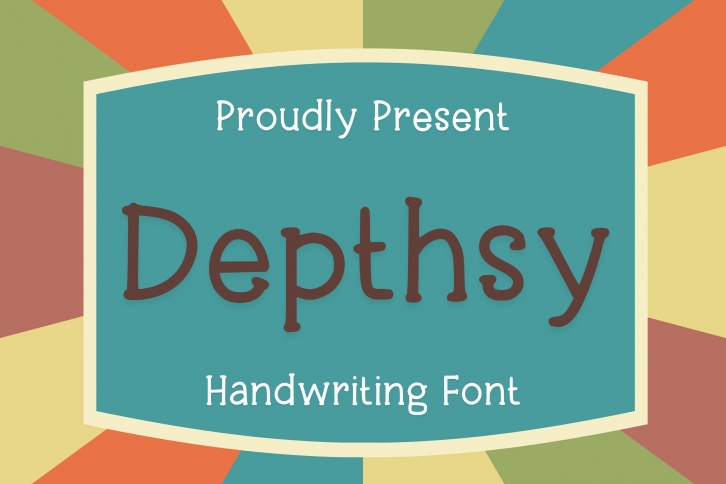
Depthsy is a trendy and unique font with an authentic style. It was designed by Aisyah and it's a great choice for creative people who need such a font. It was released on September 15, 2022 and the file size is 3.56 MB. Depthsy will add an organic vibe to any design idea!